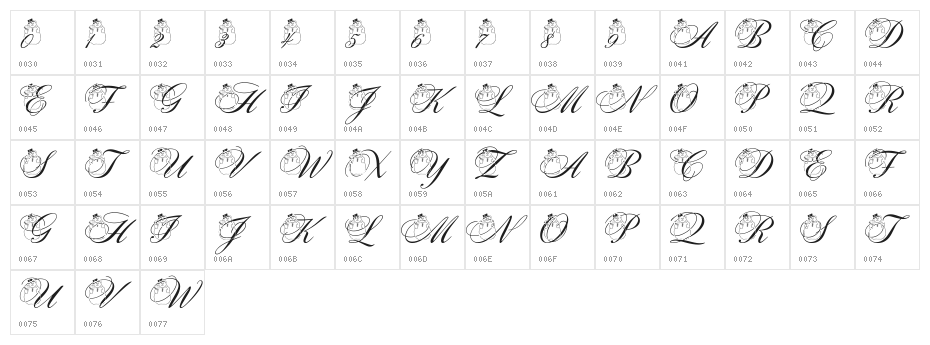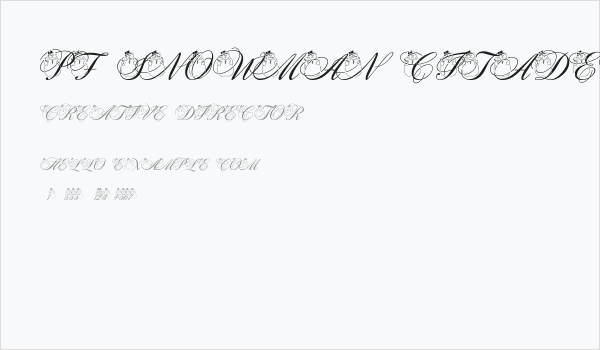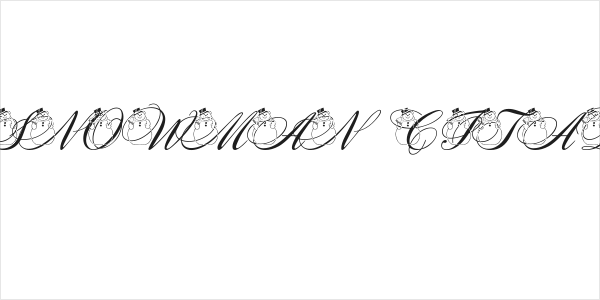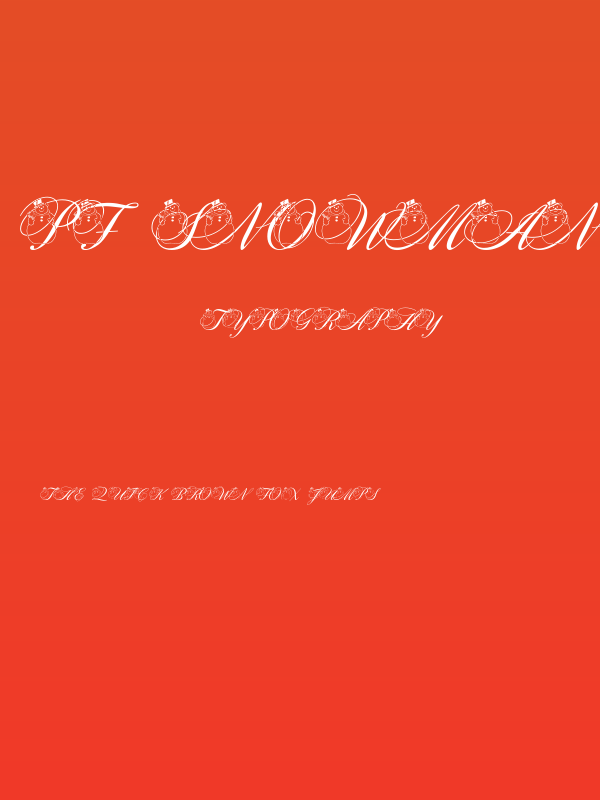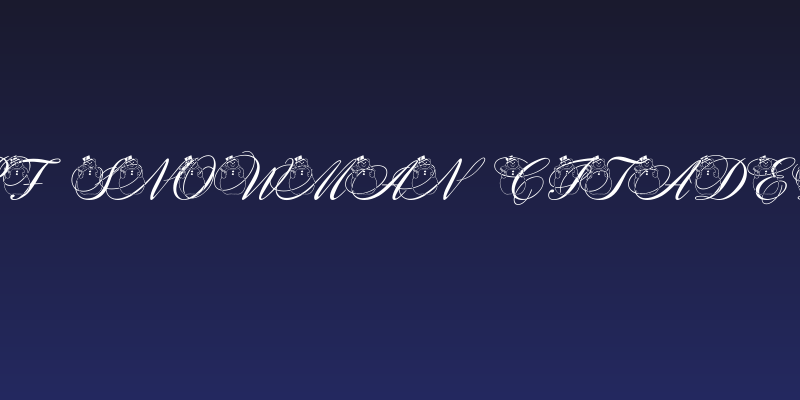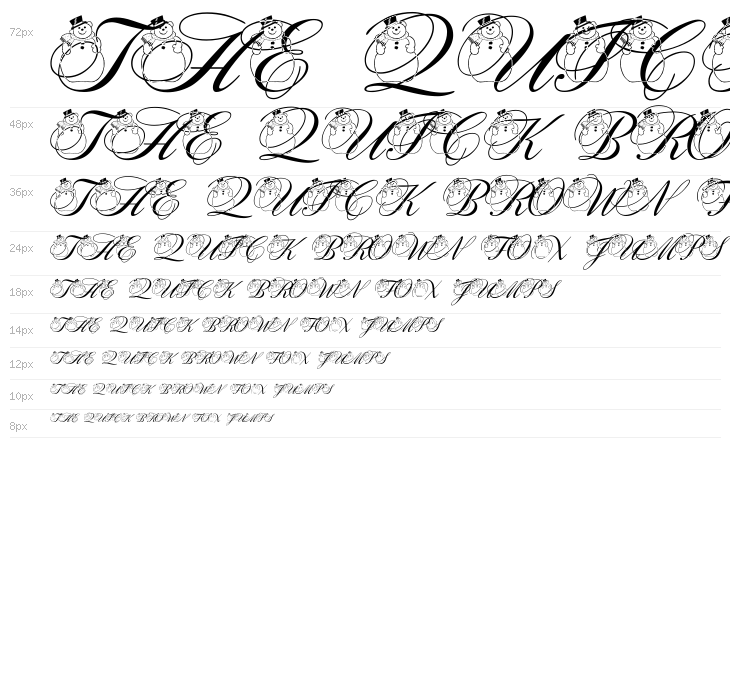
pf_snowman citadel Font
pf_snowman citadel Description
This whimsical and decorative font features playful snowman illustrations integrated into each character, adding a festive and cheerful touch. The script style is elegant and flowing, with each letter adorned by a snowman wearing a top hat. The font maintains a consistent design theme, making it ideal for holiday-themed projects. The characters are well-crafted, with smooth curves and a sense of movement, enhancing the overall joyful appearance. The numbers also follow the same design, ensuring uniformity across all elements. This font is perfect for creating eye-catching and unique designs that require a festive and playful aesthetic.
| Proposed Projects | Ideal for holiday cards, festive invitations, winter-themed posters, and playful branding materials. |